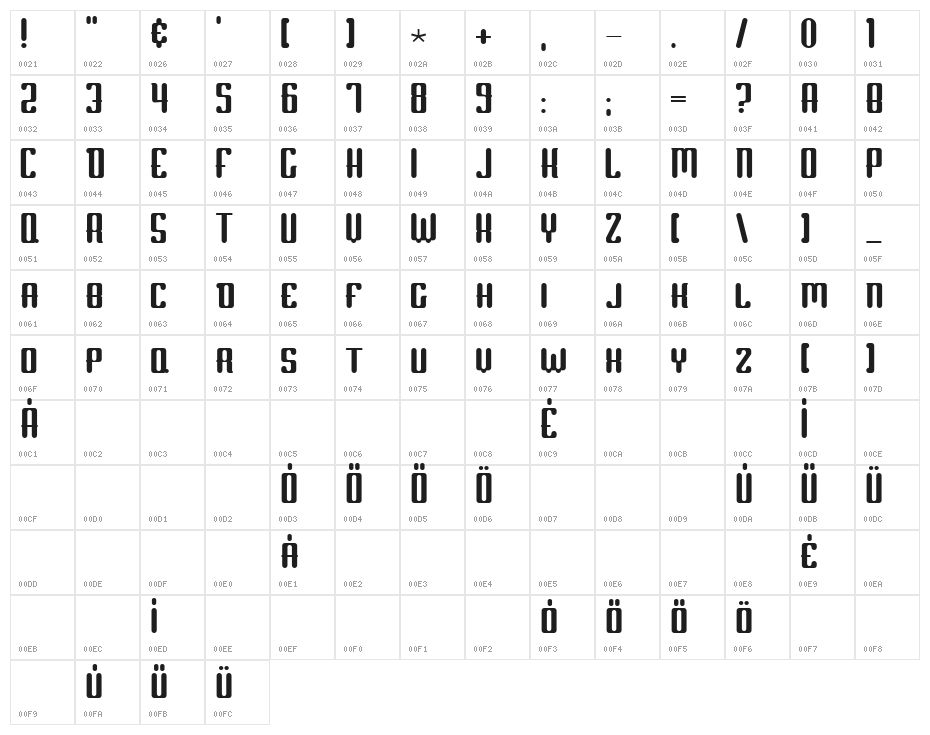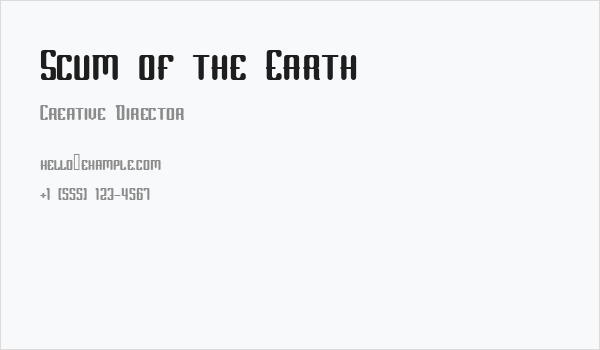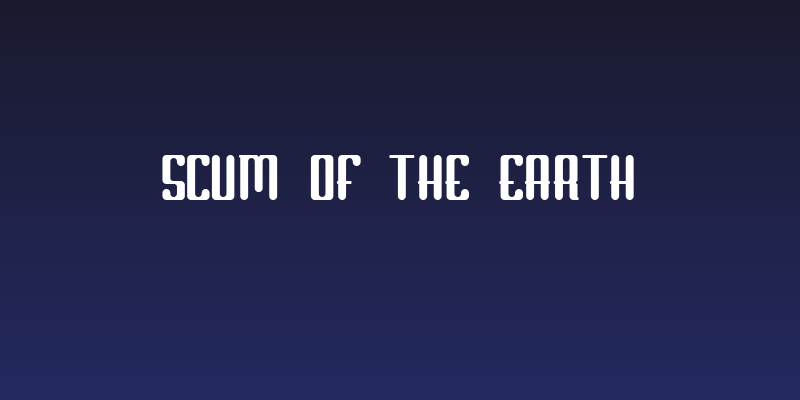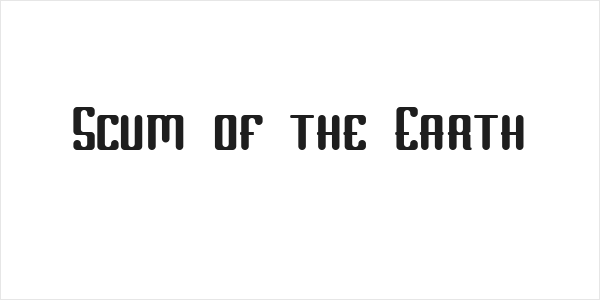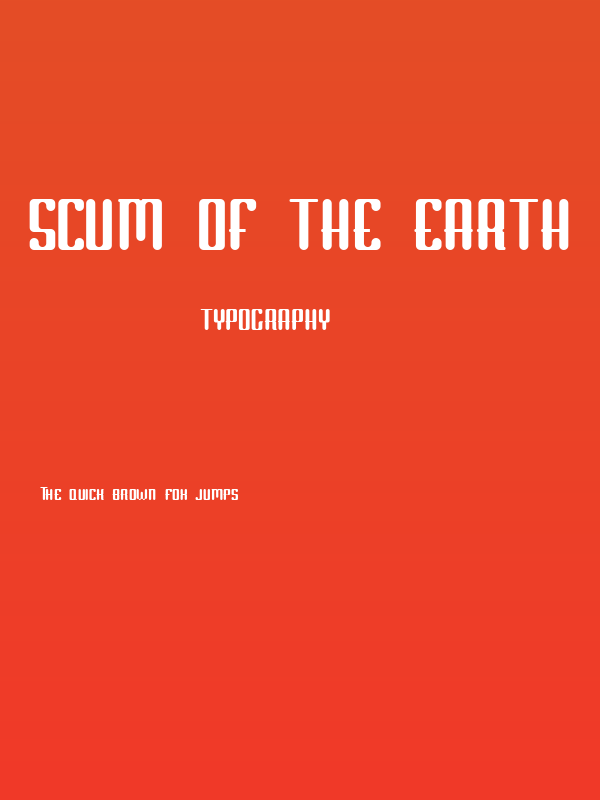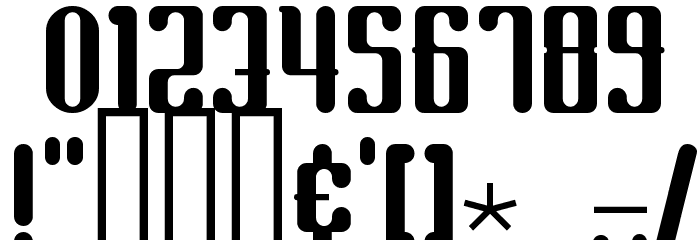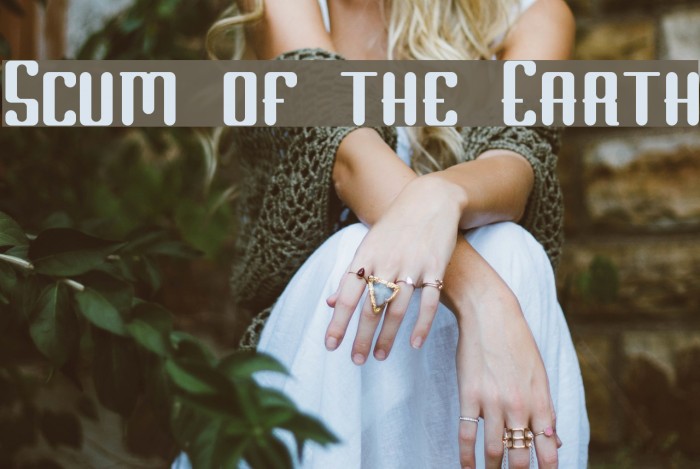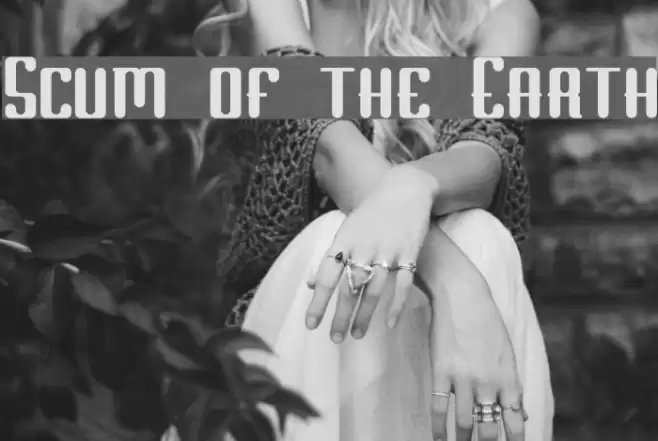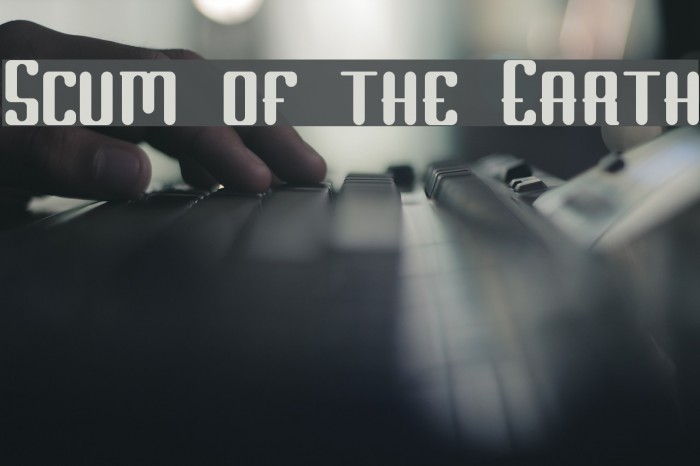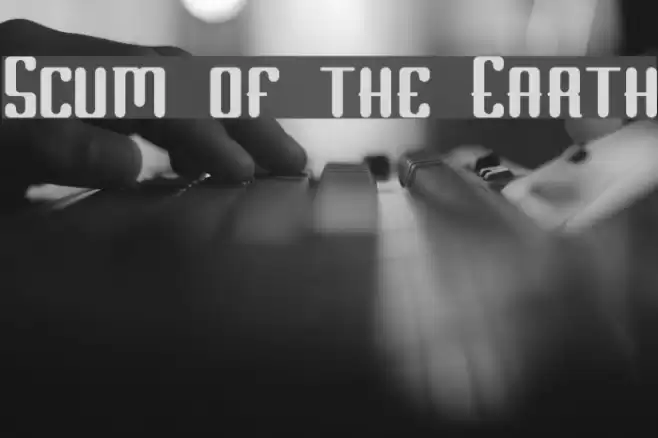
Scum of the Earth Font
Scum of the Earth Description
This font features a bold and geometric design with a modern twist. The characters are constructed with uniform stroke widths, creating a strong and cohesive appearance. The rounded edges and consistent line thickness give it a contemporary and approachable feel. Its unique style is characterized by a blend of straight lines and subtle curves, making it stand out in any design. The uppercase and lowercase letters maintain a consistent height, contributing to its clean and structured look. The numerals and special characters are designed to match the overall aesthetic, ensuring a harmonious visual experience.
| Proposed Projects | Ideal for branding, posters, headlines, and modern digital designs. |